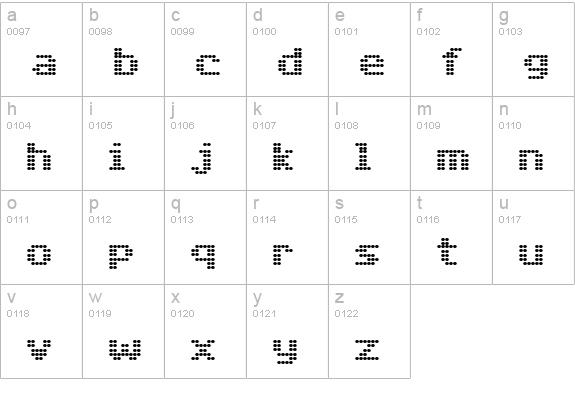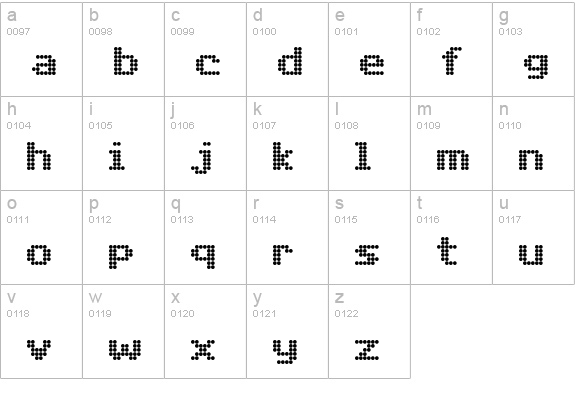
PFDigidot Six Font Details
PFDigidot Six font is a modern and sleek typeface that brings a futuristic touch to any design project. With its clean lines and digital-inspired appearance, this font is perfect for conveying a sense of innovation and technology. The unique geometric shapes and dots used in this font give it a distinct and eye-catching look that will make your text stand out. What's even better is that PFDigidot Six font is available for free! You can easily download this font at FontsMarket.com and start using it in your designs right away. Whether you're working on a website, logo, or any other creative project, PFDigidot Six font will add a contemporary and dynamic feel to your work. Don't miss out on the opportunity to enhance your designs with this stylish and modern font that is just a click away.